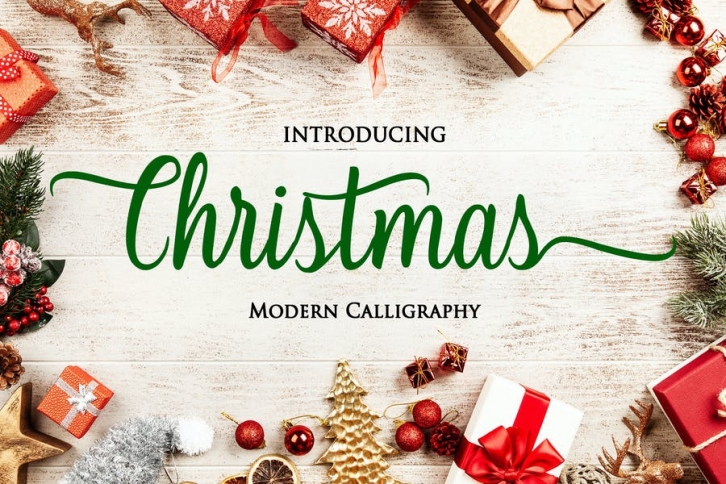
We proud presenting our new font.
It's name Christmas - Modern Calligraphy.
Christmas - Modern Calligraphya handcrafted script font with a handwritten style make this font looks elegant, natural, stylish.
Christmas - Modern Calligraphy would perfect for handcrafted, craft, invitation, logos & branding , photography, advertisements, watermark, social media posts,
product packaging, product designs, label, wedding designs, stationery, special events or anything that need handwriting taste.